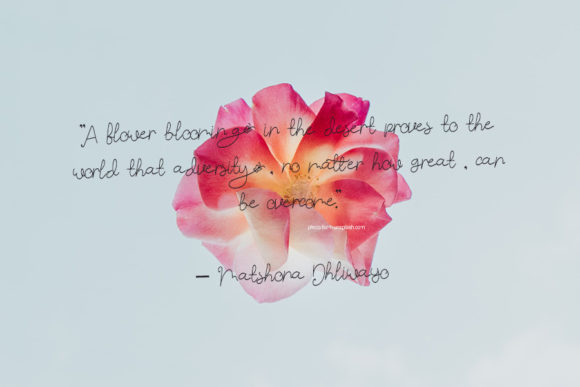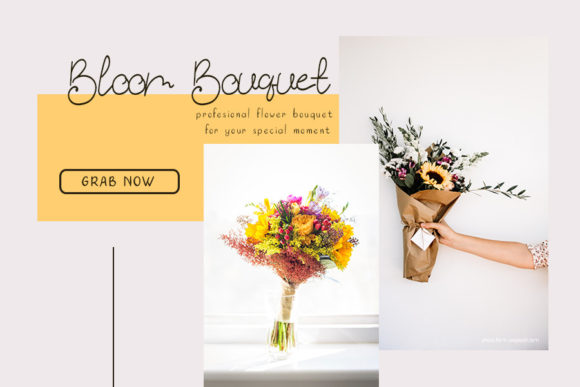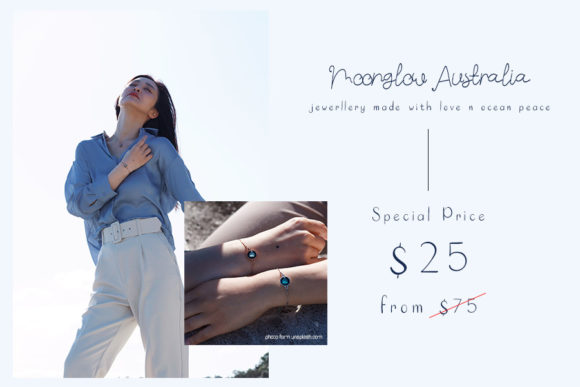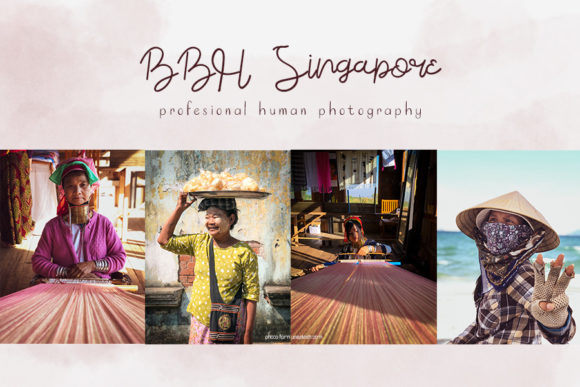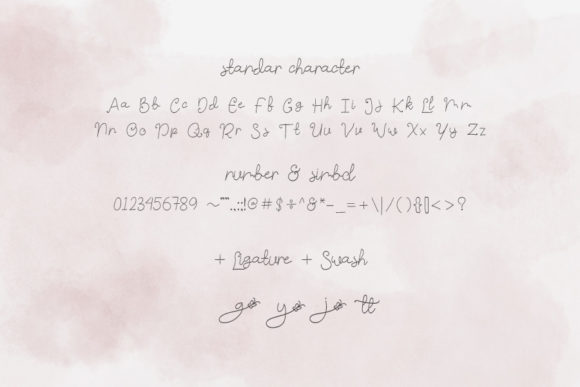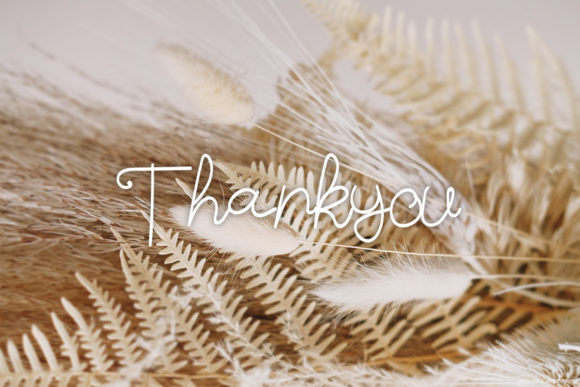
Introducing Butterfly N Flower Font: Elegance and Delicacy in Handwritten Form
In the world of typography, few fonts capture the essence of elegance and delicacy as beautifully as the Butterfly N Flower font. This stunning handwritten font is a masterpiece of sweet and delicate swashes, perfect for crafty ideas that demand a touch of sophistication. Whether you’re designing letterheads, titles, or stationery, Butterfly N Flower is the ideal choice for those seeking an original and captivating look.
The Charm of Butterfly N Flower
Butterfly N Flower font boasts an elegant and dainty appearance, characterized by its flowing script and intricate swashes. This font’s unique charm lies in its ability to add a touch of whimsy and romance to any design project. The sweet and delicate swashes that adorn each letter create a sense of movement and fluidity, making it perfect for designs that require a sense of dynamism.
Perfect for Crafty Ideas
Crafters and designers will love the versatility of Butterfly N Flower font. Its elegant appearance makes it suitable for a wide range of projects, including:
- Letterheads: Add a touch of sophistication to your business correspondence with Butterfly N Flower font.
- Titles: Create eye-catching titles for your blog posts, articles, or social media graphics with this beautiful font.
- Stationery: Design stunning stationery, including invitations, greeting cards, and thank-you notes, with Butterfly N Flower font.
Why Choose Butterfly N Flower Font?
With so many fonts available, why choose Butterfly N Flower? Here are just a few reasons why this font stands out:
- Unique and Original: Butterfly N Flower font offers a fresh and original look that will set your designs apart from the rest.
- Elegant and Dainty: This font’s elegant and dainty appearance makes it perfect for designs that require a touch of sophistication.
- Versatile: Butterfly N Flower font can be used for a wide range of projects, from letterheads to stationery.
Tips for Using Butterfly N Flower Font
To get the most out of Butterfly N Flower font, here are a few tips to keep in mind:
- Pair with Simple Fonts: Pair Butterfly N Flower font with simple fonts to create a striking contrast and make your designs stand out.
- Use for Headings: Use Butterfly N Flower font for headings and titles to add a touch of elegance to your designs.
- Experiment with Colors: Experiment with different colors to find the perfect match for your design and make Butterfly N Flower font shine.
In conclusion, Butterfly N Flower font is a stunning handwritten font that offers an elegant and dainty appearance, perfect for crafty ideas that demand a touch of sophistication. With its unique and original look, versatility, and charm, this font is sure to become a favorite among designers and crafters. Whether you’re designing letterheads, titles, or stationery, Butterfly N Flower font is the ideal choice for those seeking to add a touch of elegance and whimsy to their designs.